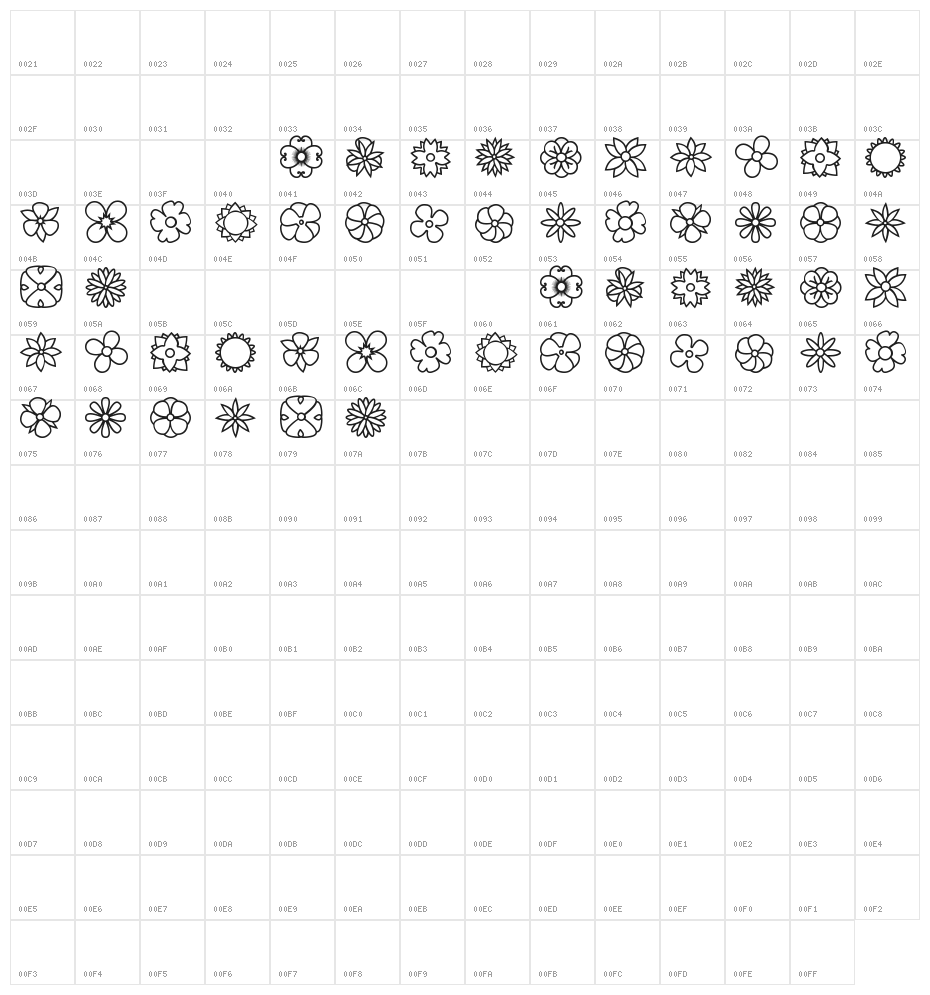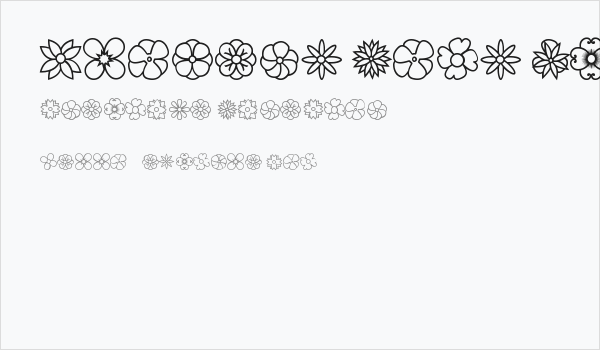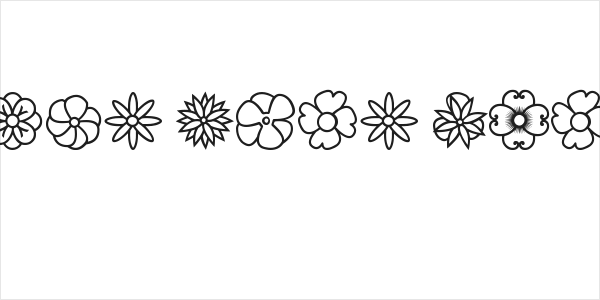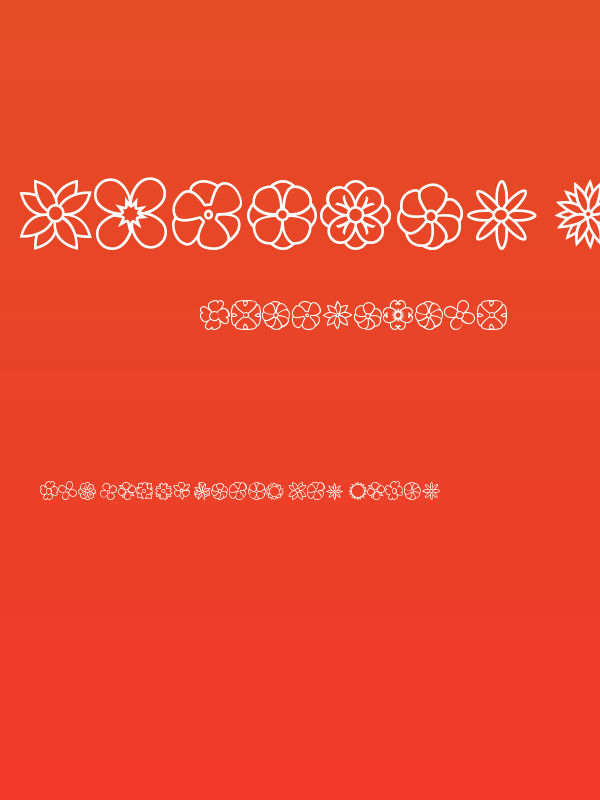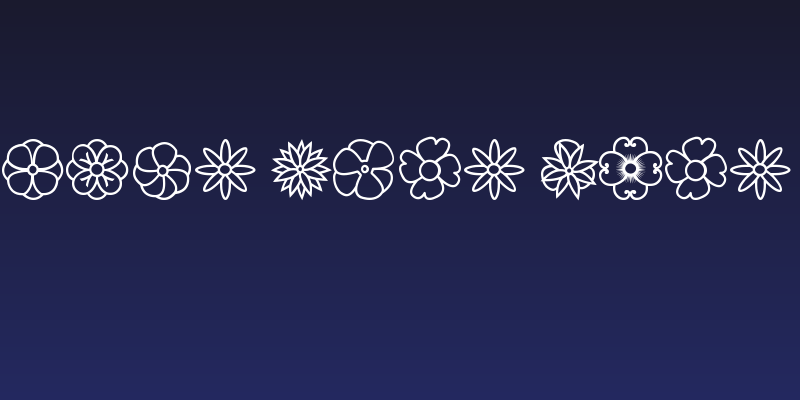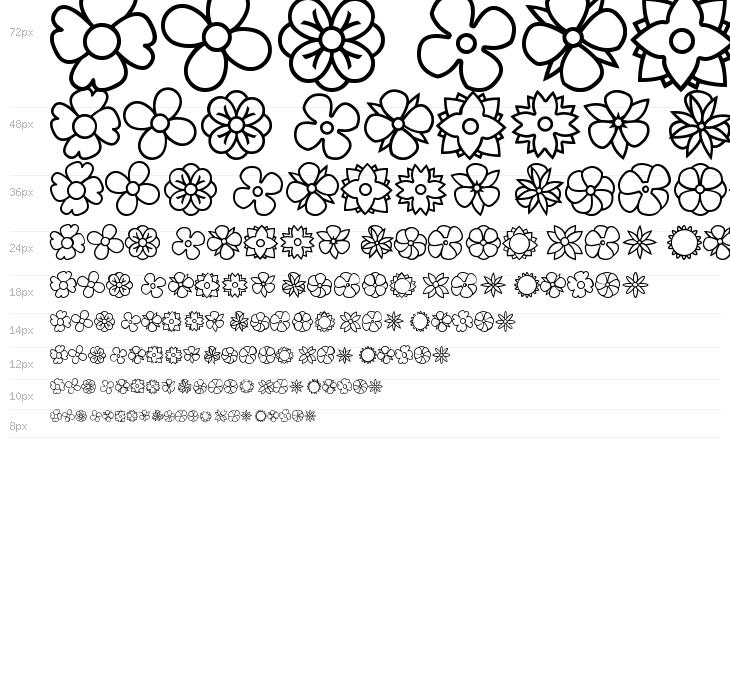
Flowers dots bats tfb Font
Flowers dots bats tfb Description
This is not a traditional font but rather a collection of decorative floral and geometric symbols. Each character is represented by a unique flower or shape, featuring intricate line work and symmetrical designs. The symbols are consistent in style, offering a playful and artistic touch that can be used to embellish various design projects. The collection includes a variety of floral motifs, each with distinct petal arrangements and center designs, making it versatile for creative applications.
| Use Case | Artistic embellishments, decorative borders, creative design projects. |
| Proposed Projects | Ideal for use in decorative borders, greeting cards, scrapbooking, and artistic design projects where a floral or whimsical theme is desired. |